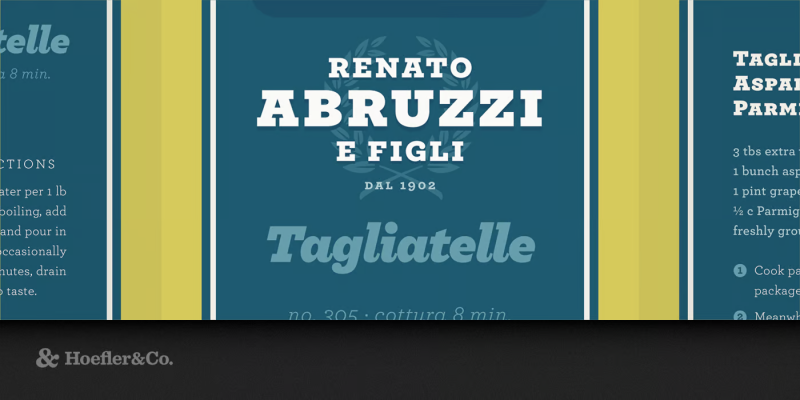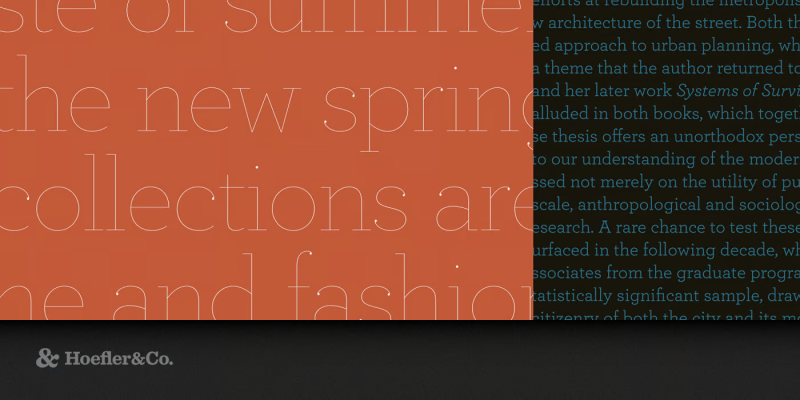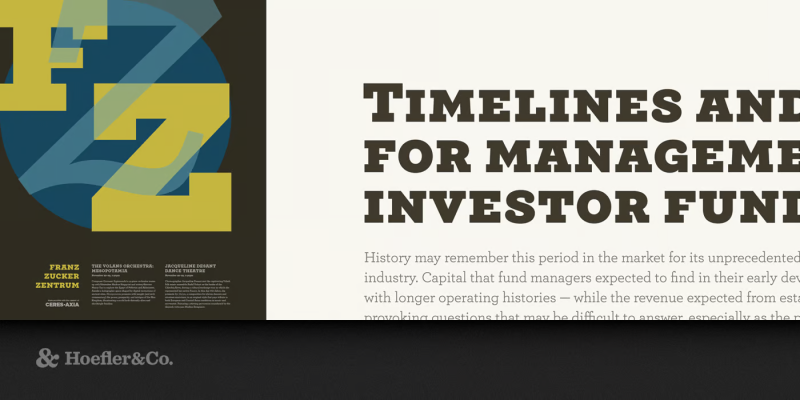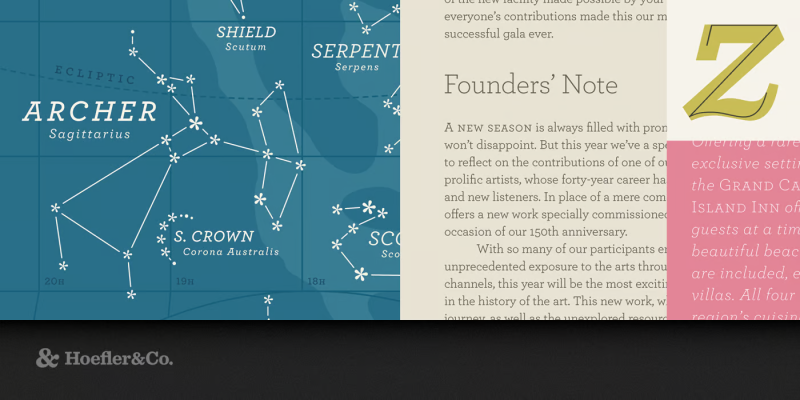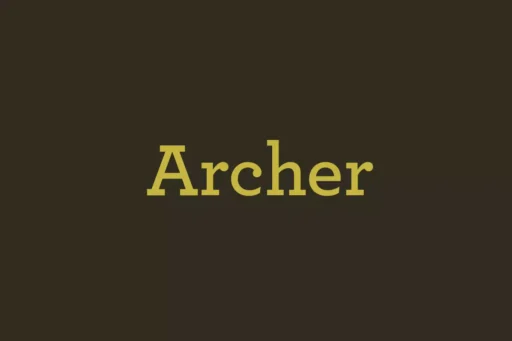
Archer Font
Archer is a slab serif font designed by Jonathan Hoefler and Tobias Frere-Jones, two renowned font designers in the world of typography. The two aimed at creating a slab serif typeface that was not the usual bold and robust in appearance, which is the norm within this category. They wanted a font that is both warm and friendly, playful without being too casual and could be easily read while maintaining a professional demeanour.
Archer can be traced back to 2001, when Tobias Frere-Jones and Jonathan Hoefler started working on a typeface design for the Martha Stewart Living magazine. The vision was to design a typeface that would harmonize with the magazine’s refined and chic demeanour while being suitable for general application. The outcome was Archer, which is a font that has both classic and contemporary characteristics.
Archer’s design was based on many historical fonts and cuts which are of the eighteenth and nineteenth centuries. Despite this, Frere-Jones and Hoefler intended to design a typeface that is an original creation that would not only be a reproduction of the past but a font that is relevant for the twenty-first century. Archer boasts simple geometric forms, clear counters, and a minimalistic approach, making it a highly flexible and readable typeface.
One of the most prominent feature in Archer is its rounded terminals. Archer has rounded corners at the ends of the strokes, unlike the majority of the slab serif fonts that haveSquare-shaped corners. This is suitable for various uses including editorial and corporate design and branding, products, and advertisements.
The font family is quite versatile as it has thin to bold weights and comes with roman and italic styles. This helps the designers to match and select the right one for their projects and maintain the uniformity throughout the design materials.
Archer is one of the most versatile font of its kind. The design is simple and untangled which ensures that the text is easily readable in small sizes for the body text in print and online media. However, the distinctive personality and appeal of the font come through well even at larger sizes, which is perfect for headings and titles.
Archer in editorial design gives a classy look and elegant feel without necessarily becoming the focal point of the design. It is visible in numerous magazines and journals; the design of the product pairs well with the written content, enriching the reader’s experience. In the corporate branding context, Archer’s look, which is friendly and professional, helps companies portray professionalism and friendliness.
There are many fonts similar to Archer that share the same design principles. Some of them include:
BrixSans: A slab-serif typeface based on the Archer’s design, proportion and overall appearance.
FF Tisa: A similar serif typeface with a humanist touch and large proportions.
Georgia: This is a clean and elegant serif typeface that has characteristics similar to Archer in terms of readability and functionality.